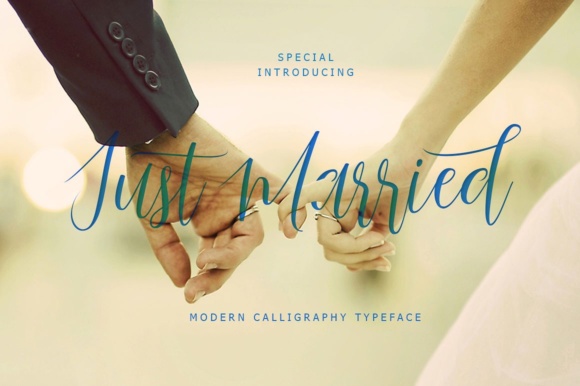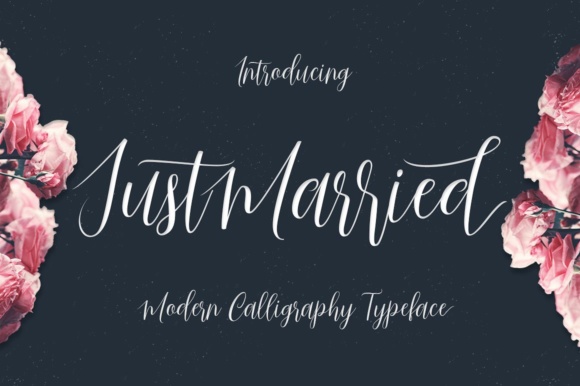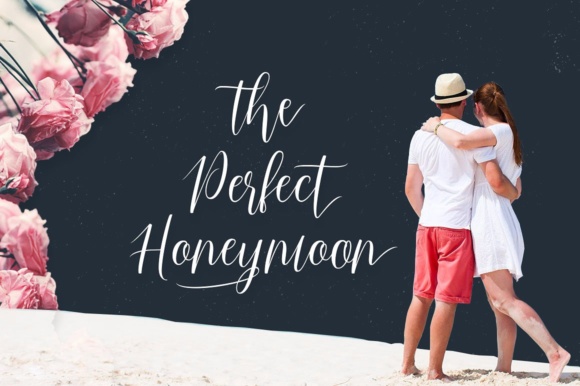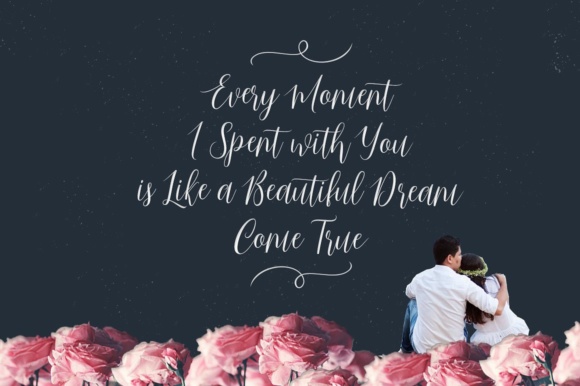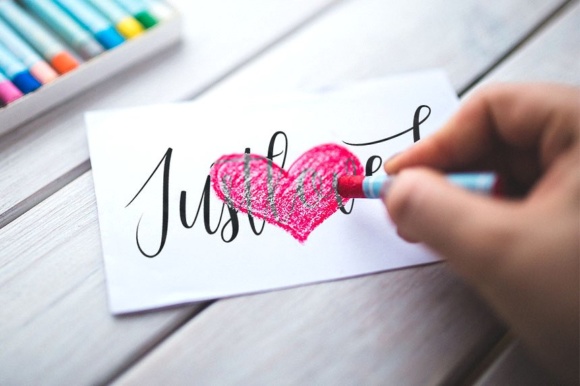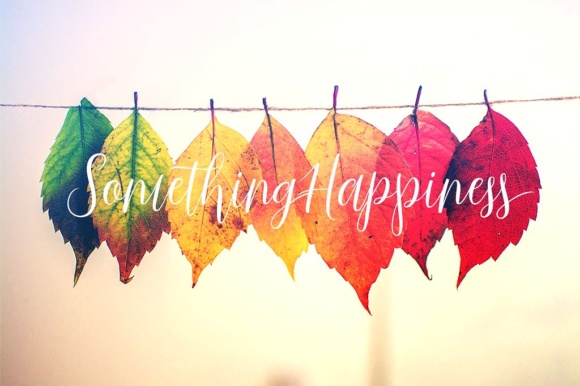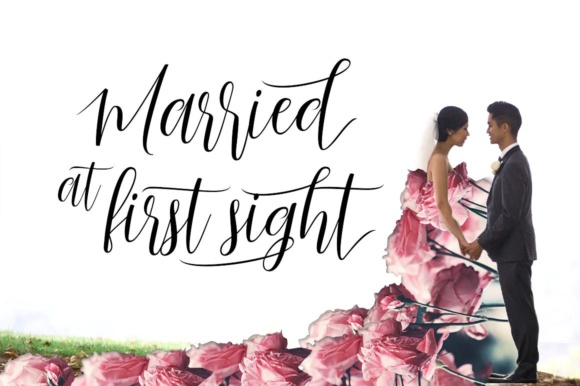
Just Married Script Font
About Just Married Script Font
Just Married is a feminine script font with fun yet classy characters. It’s perfect for greeting cards, wedding invitations, quotes, and much more!